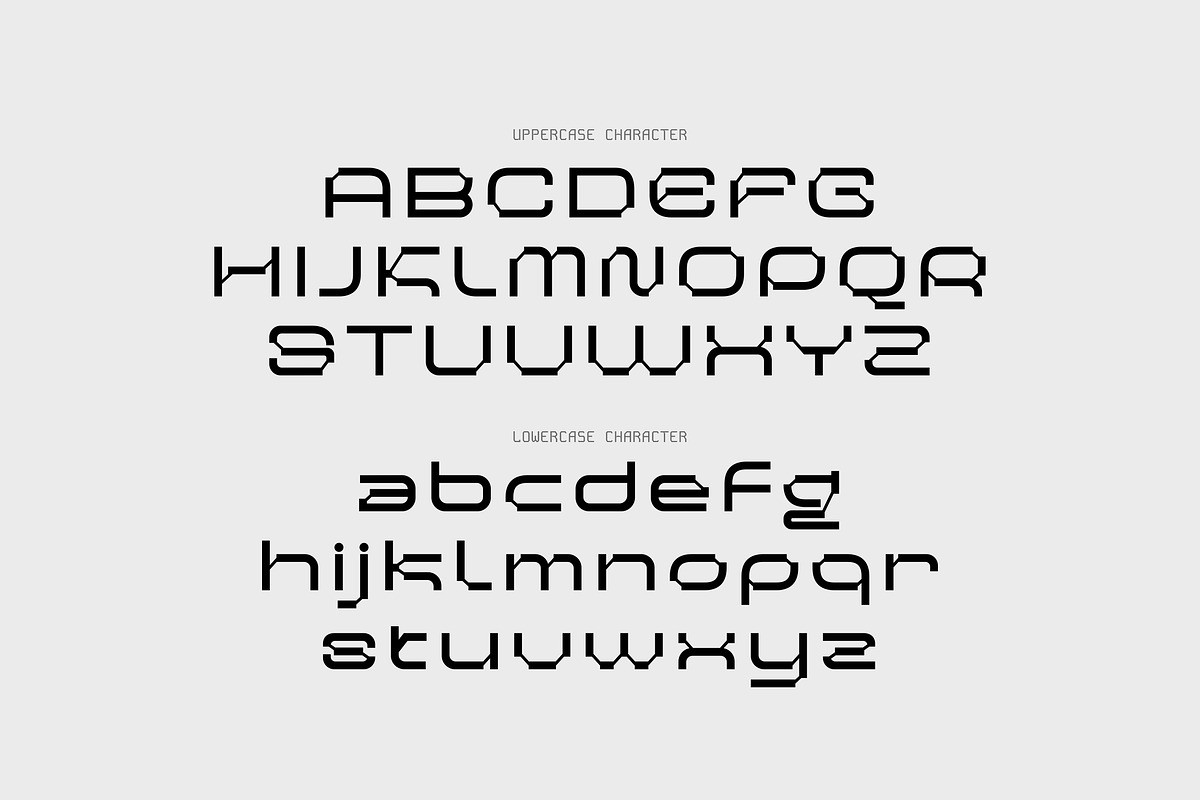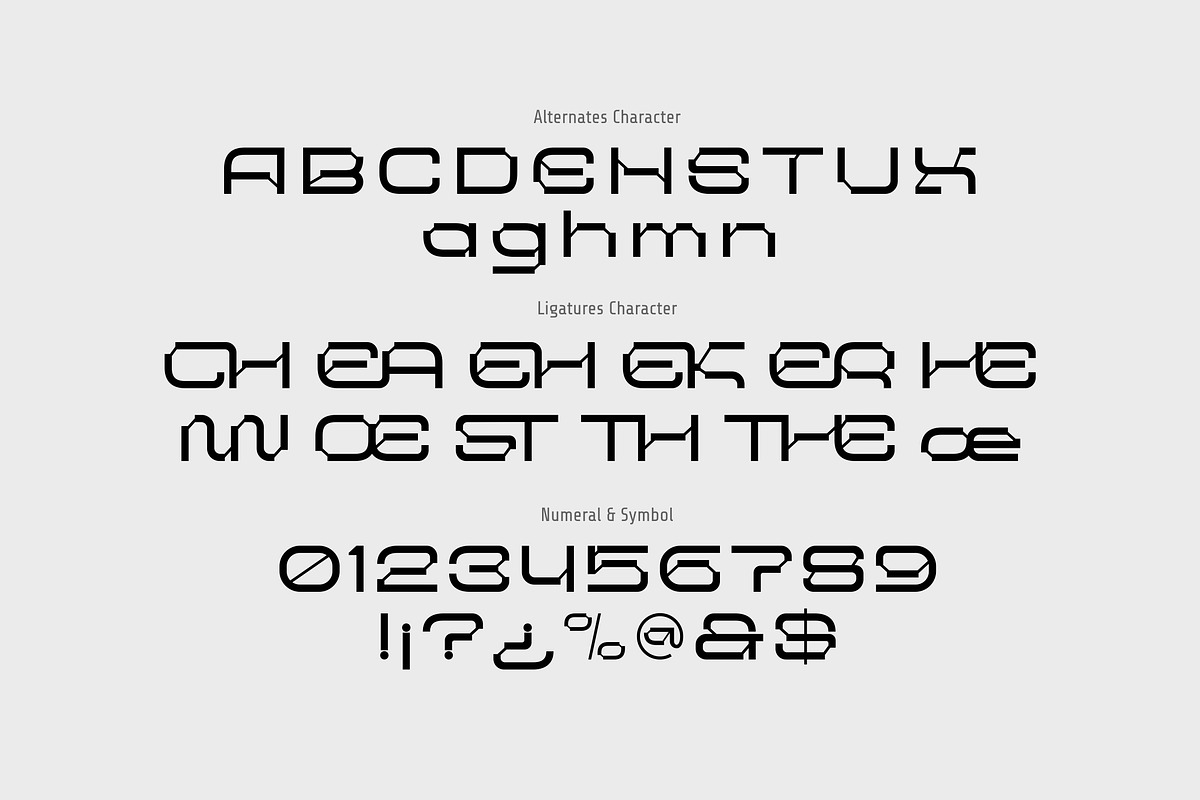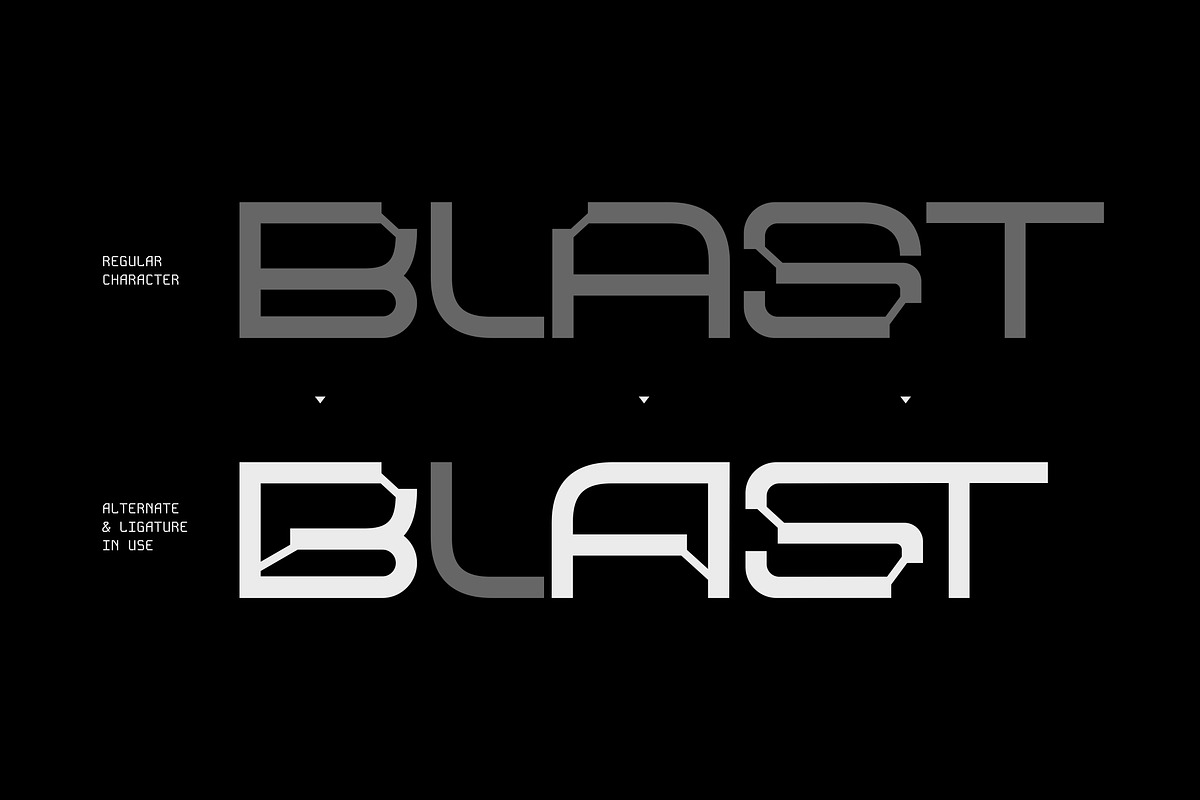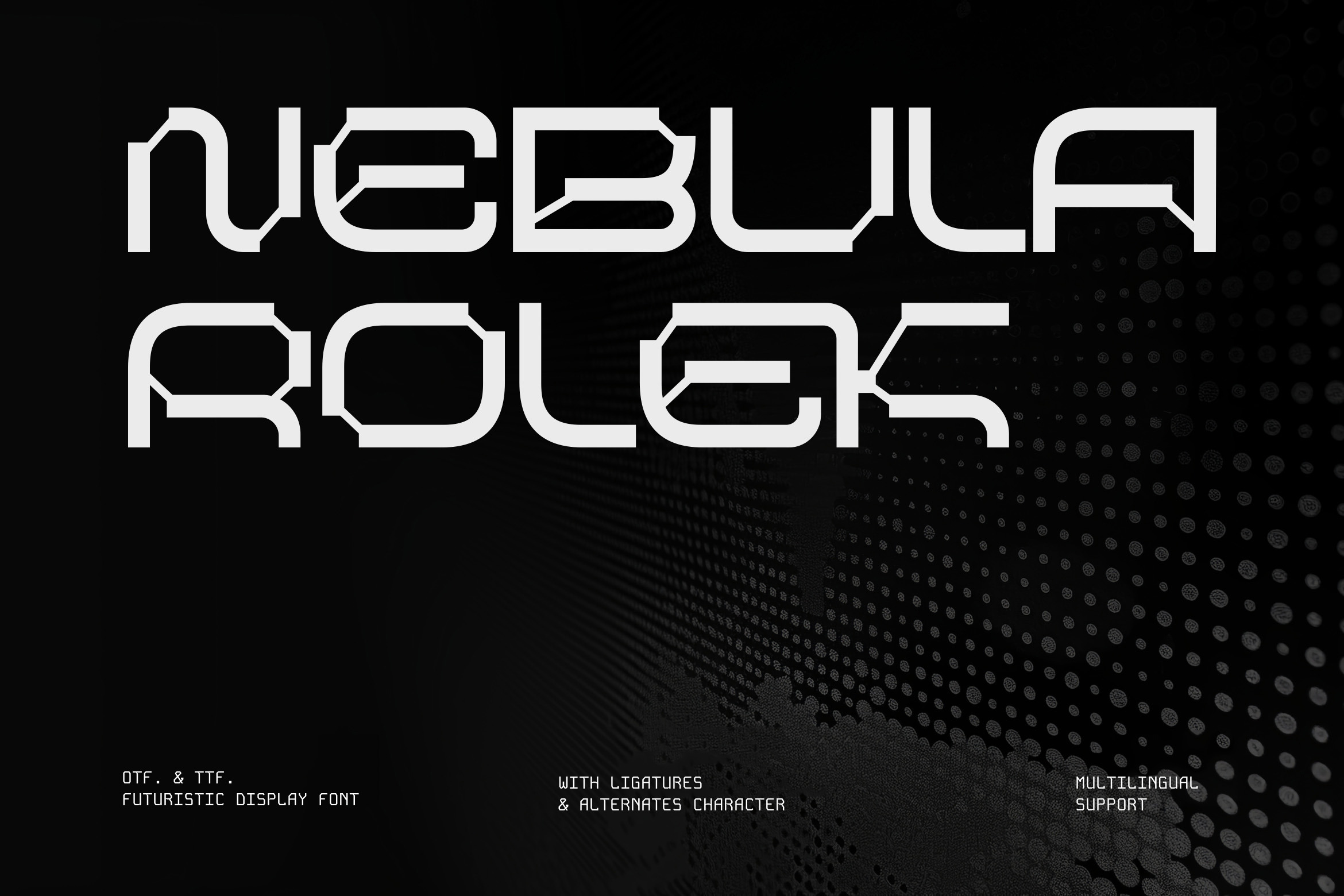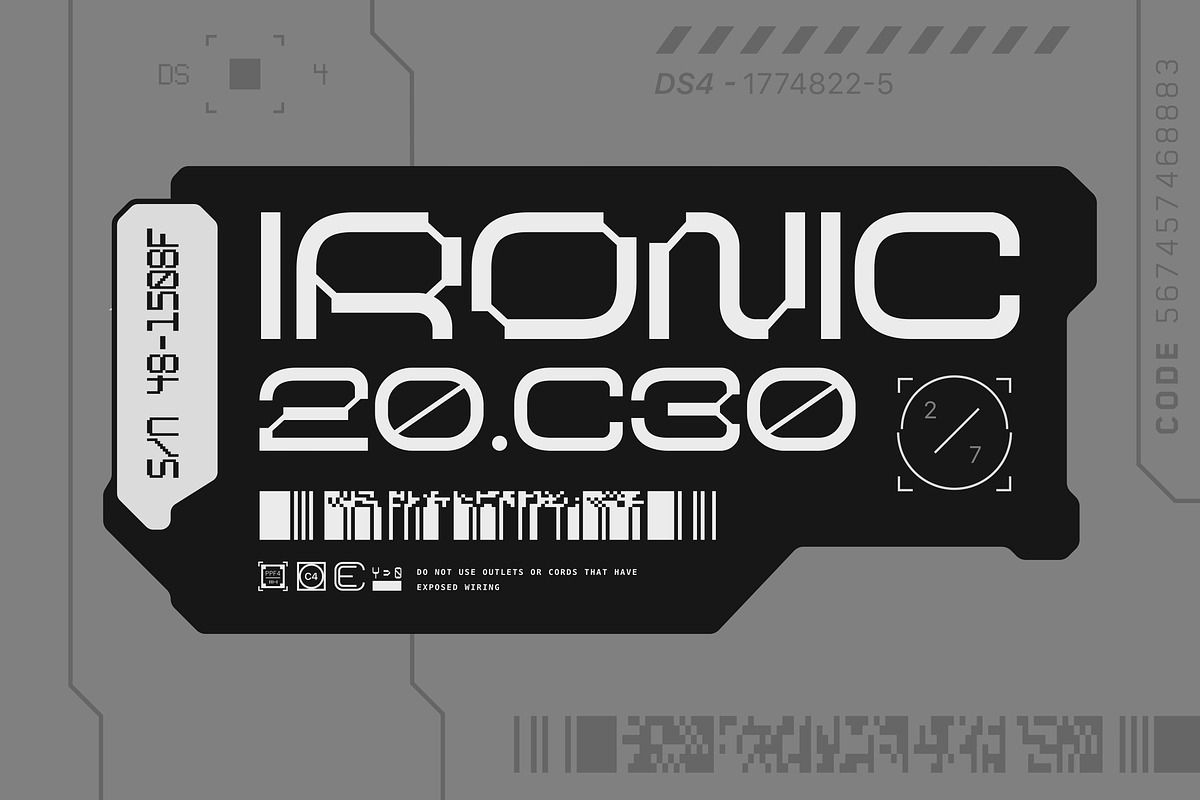
Nebula Rolek - Cyber Techno Typeface
Launch your designs into the next dimension with Nebula Rolek, a powerful and modern futuristic display font. Drawing inspiration from the sleek aesthetics of space exploration, sci-fi interfaces, and cutting edge technology, Nebula Rolek is engineered to make a bold, unforgettable statement.
Its distinctive wide, geometric letterforms feature unique stencil like cutouts, giving it a high tech, mechanical feel. But Nebula Rolek is more than just a static set of characters, it's a versatile design toolkit. This font is packed with a vast set of stylistic ligatures and alternate characters that allow you to create dynamic, custom typography that feels both cohesive and custom built.
Whether you're designing a logo for a tech startup, creating a poster for a sci-fi film, branding an esports team, or developing a UI for a futuristic game, Nebula Rolek provides the strength and character you need to command attention.
- Uppercase and Lowecase Characters.
- Numerals and Punctuations.
- Alternates and Ligatures.
- Multilingual Support.